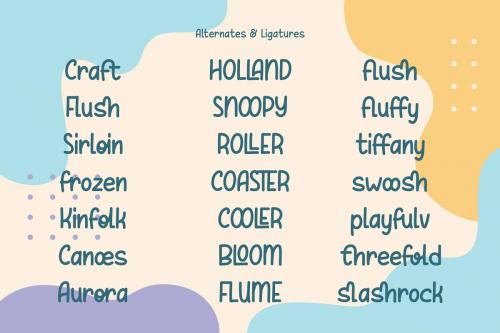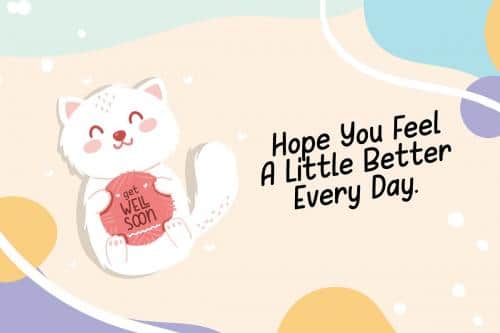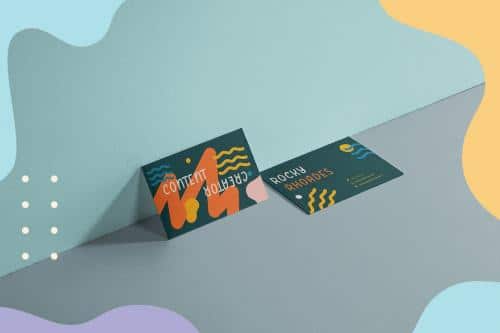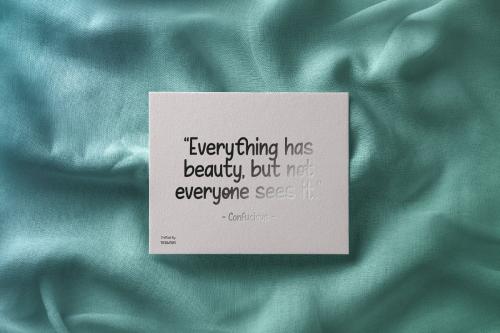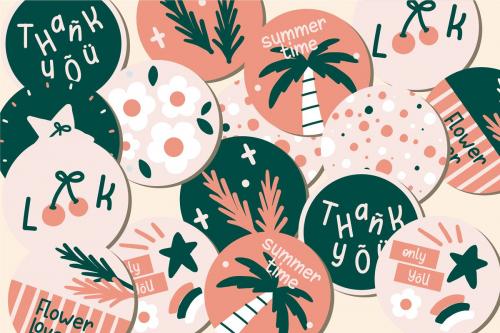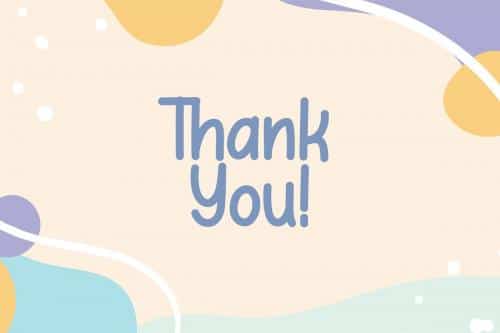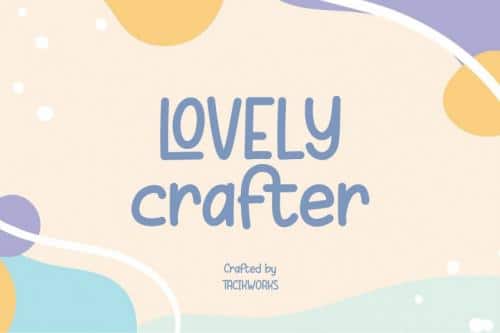
Lovely Crafter Display Font
Introducing a new font called Lovely Crafter font. Lovely Crafter font is inspired by writing made using a marker pen, showing a simple line shape so as to create a simple font.
This font has approximately 279 glyph characters including uppercase, lowercase, discretionary ligatures and standard ligatures alternatives. It is suitable for creating vintage designs such as posters, merchandise, clothing, brochures, business cards and others.